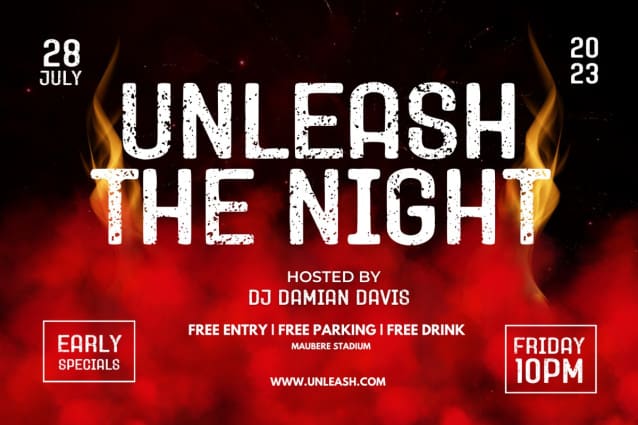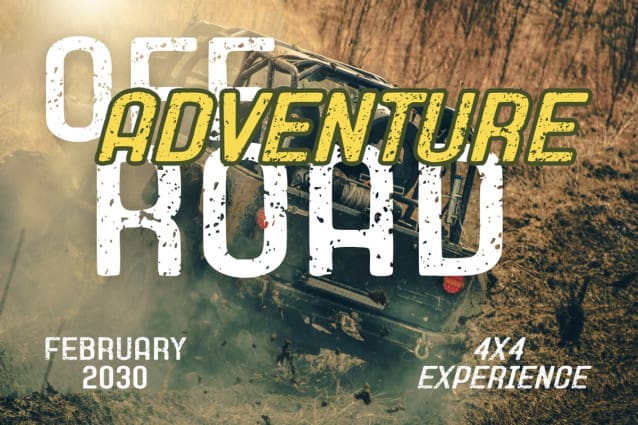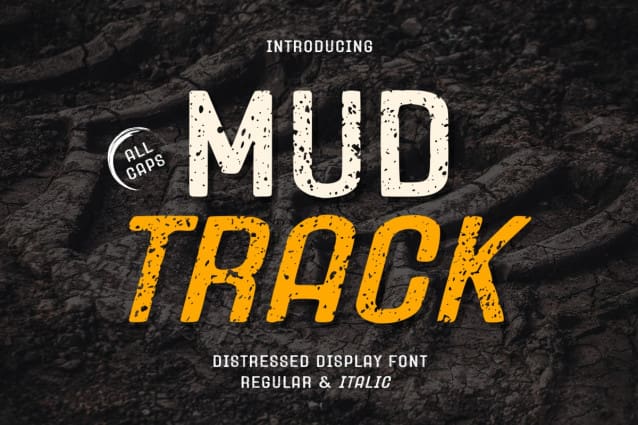
Mud Track Font
Mud Track Font, a bold distressed display font that brings rugged character and a raw edge to your designs. Perfect for creating standout headlines, posters, and branding, “Mud Track” adds a gritty, authentic feel to any project. Its unique distressed style makes it ideal for capturing attention and conveying a sense of adventure and boldness. Let “MudTrack” drive your creative work off the beaten path and make a lasting impression.